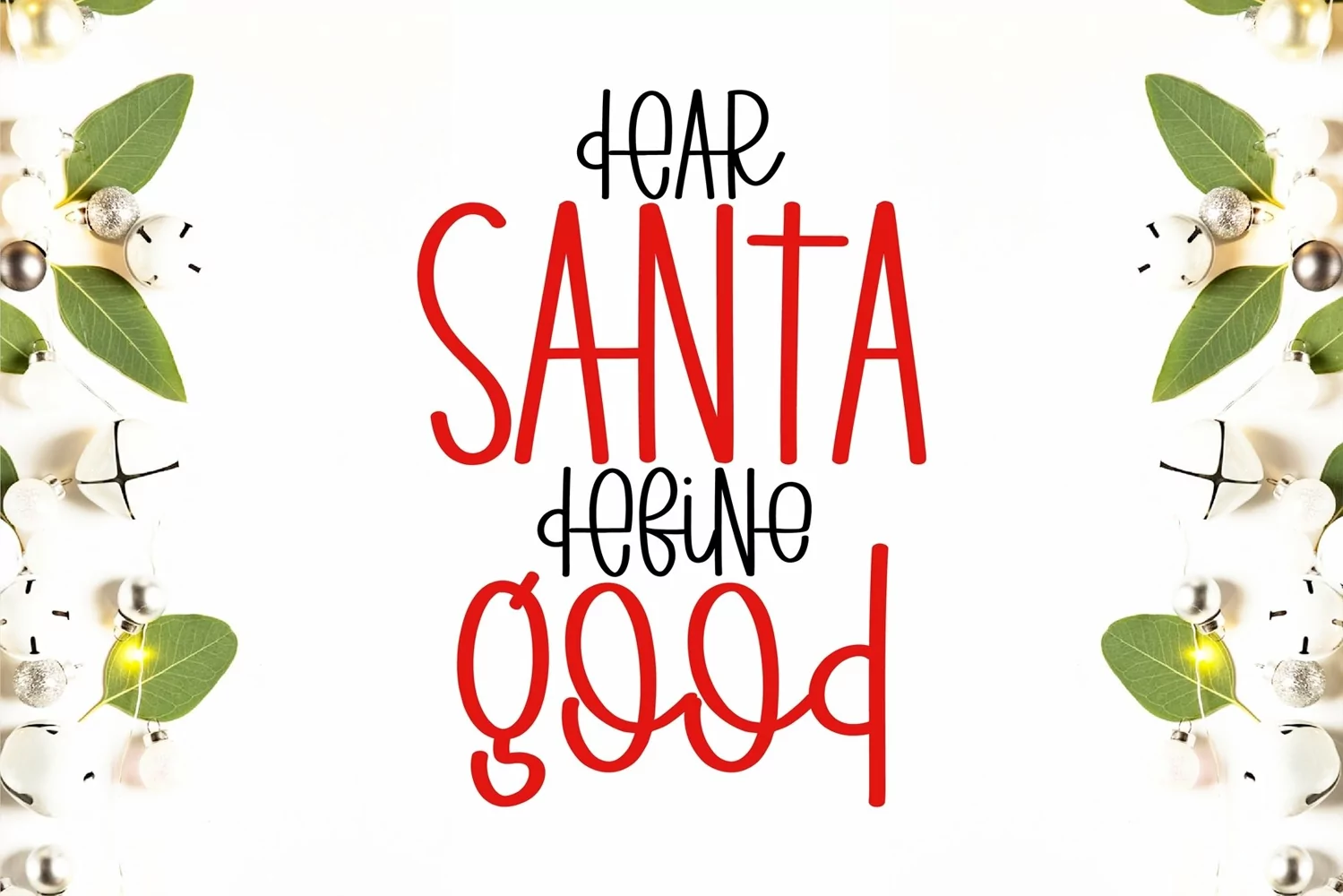
Day Before Christmas is a stylish sans serif handwritten mixed-case font with fun informal and perfect for any event.
Day Before Christmas is perfect for branding projects, logos, wedding designs, social media posts, advertisements, product packaging, product designs, labels, photography, watermarks, invitations, stationery, and any projects that need handwriting taste.